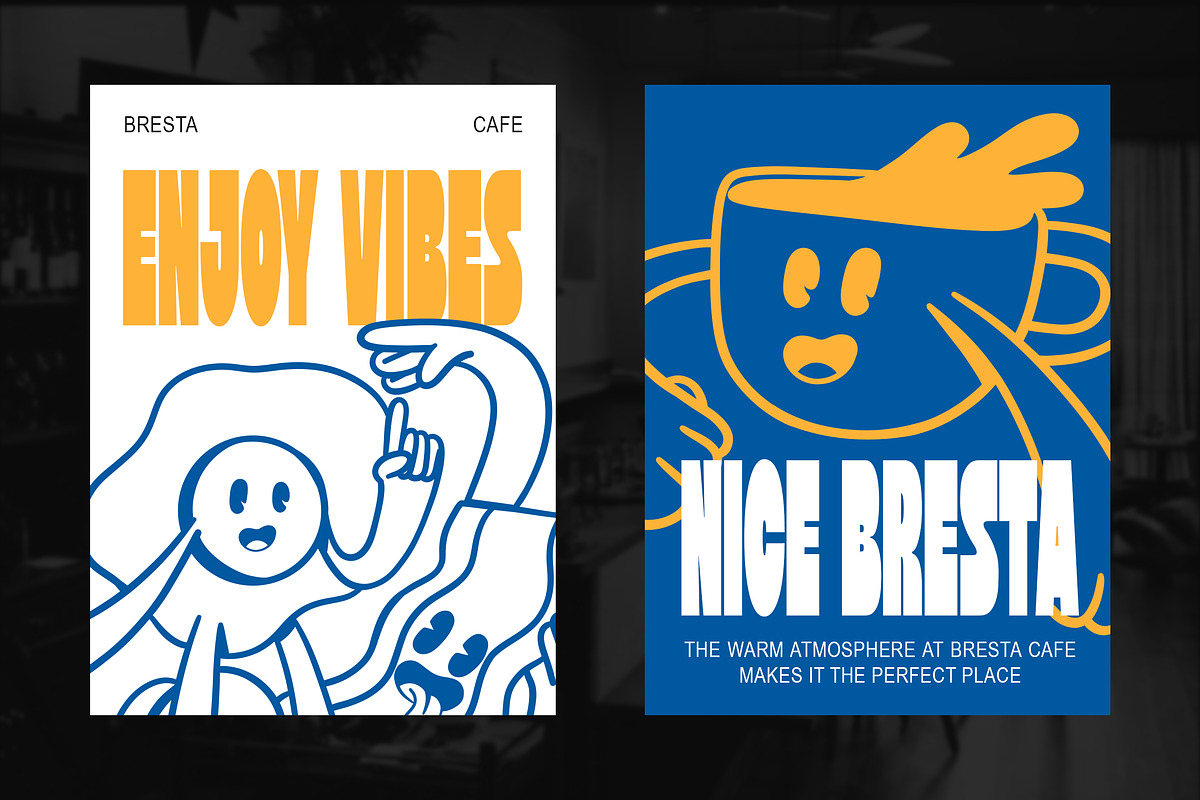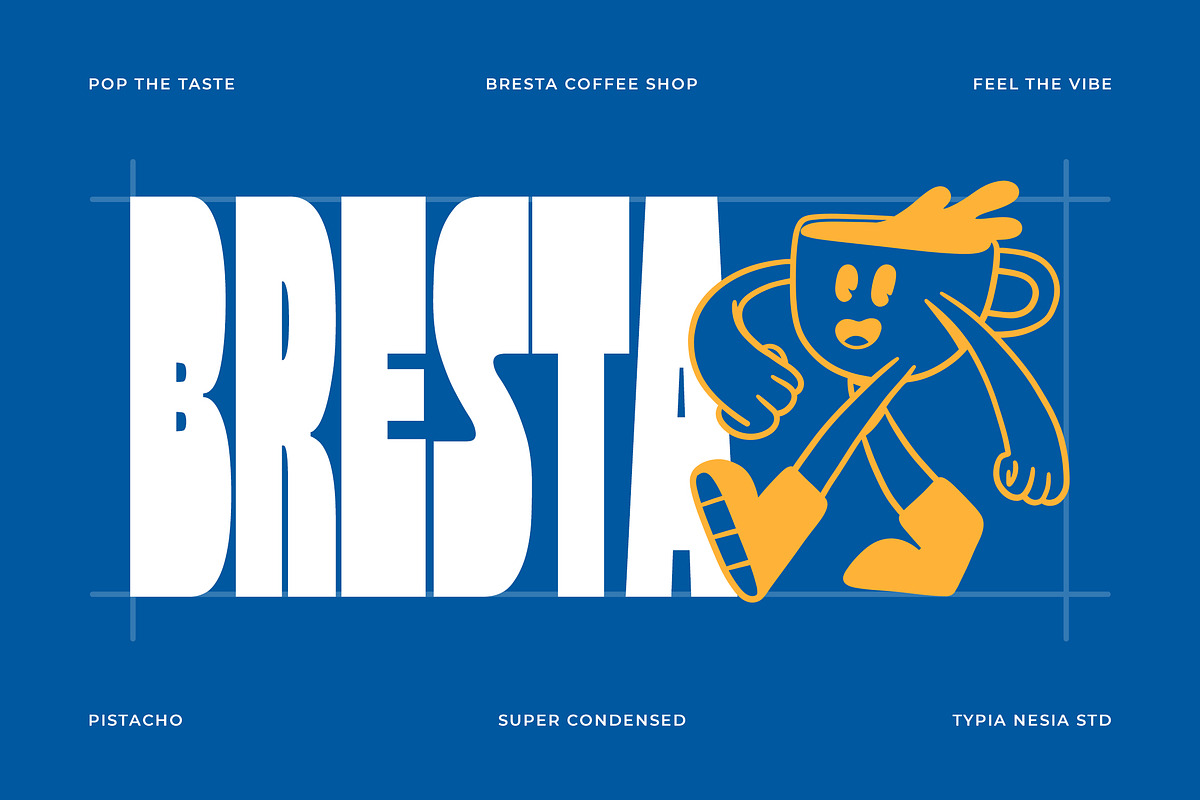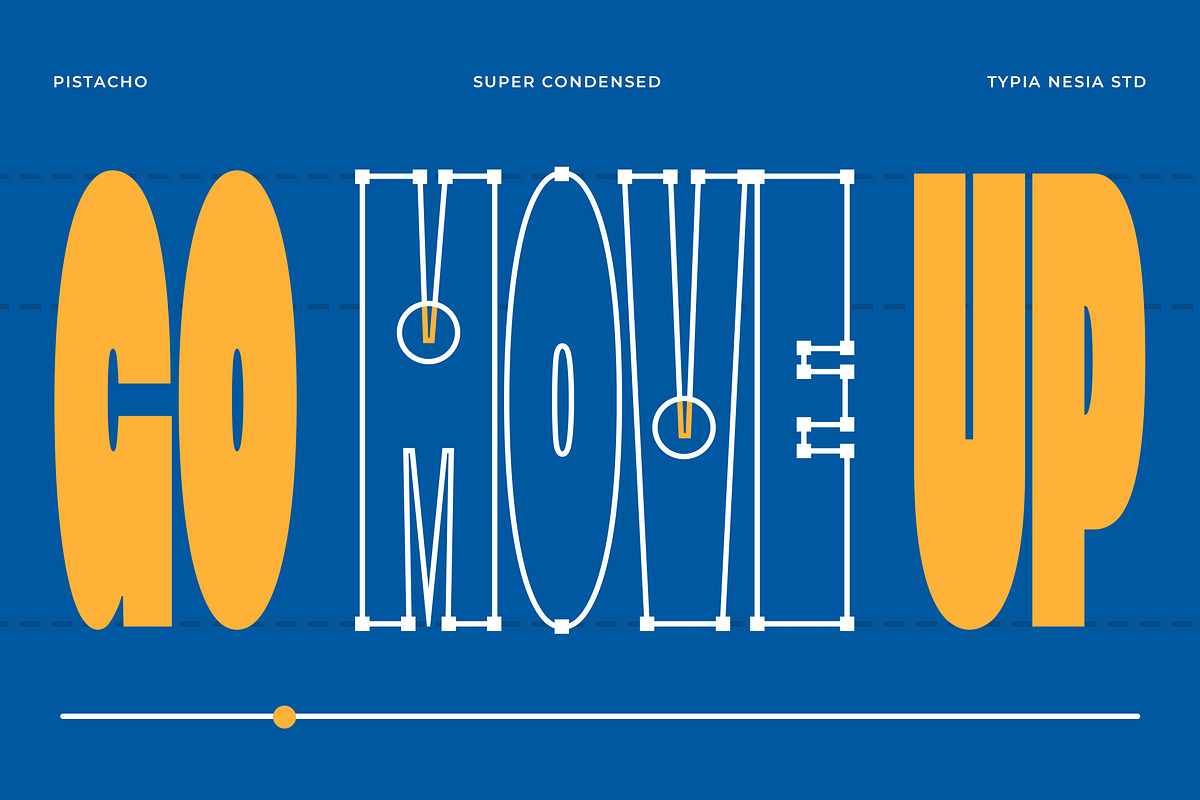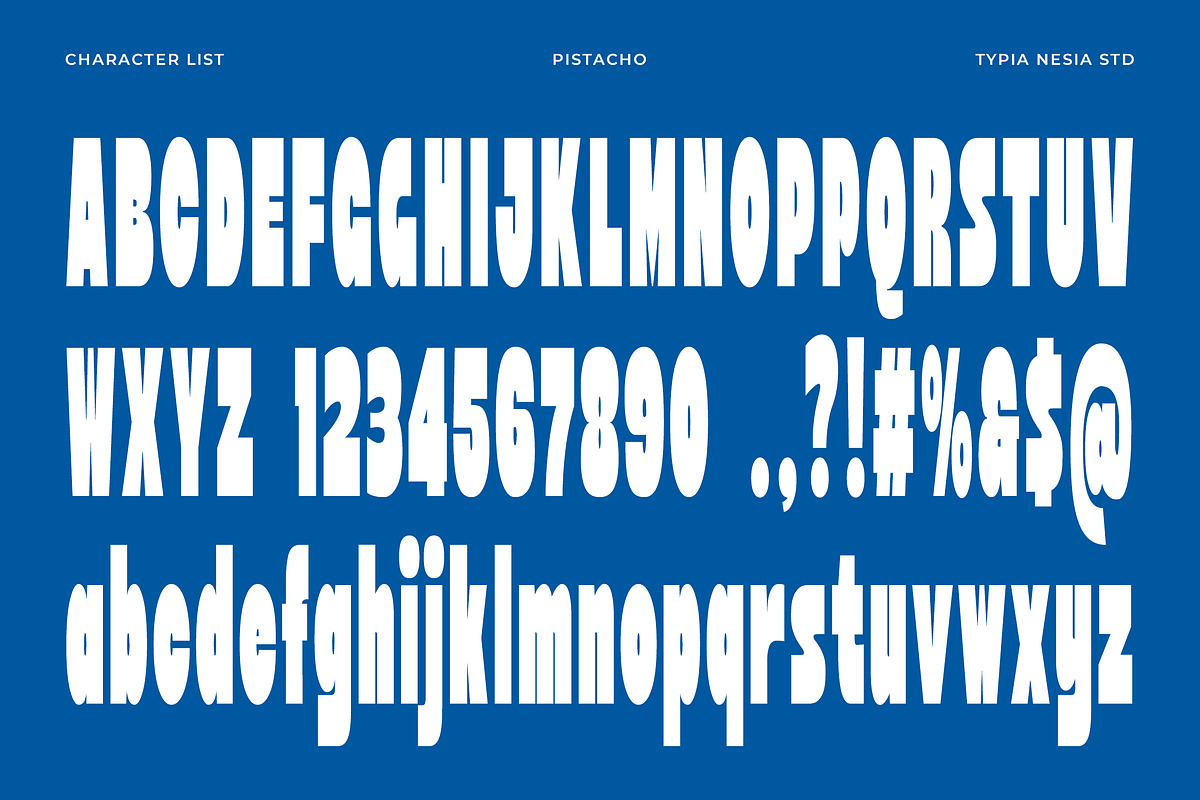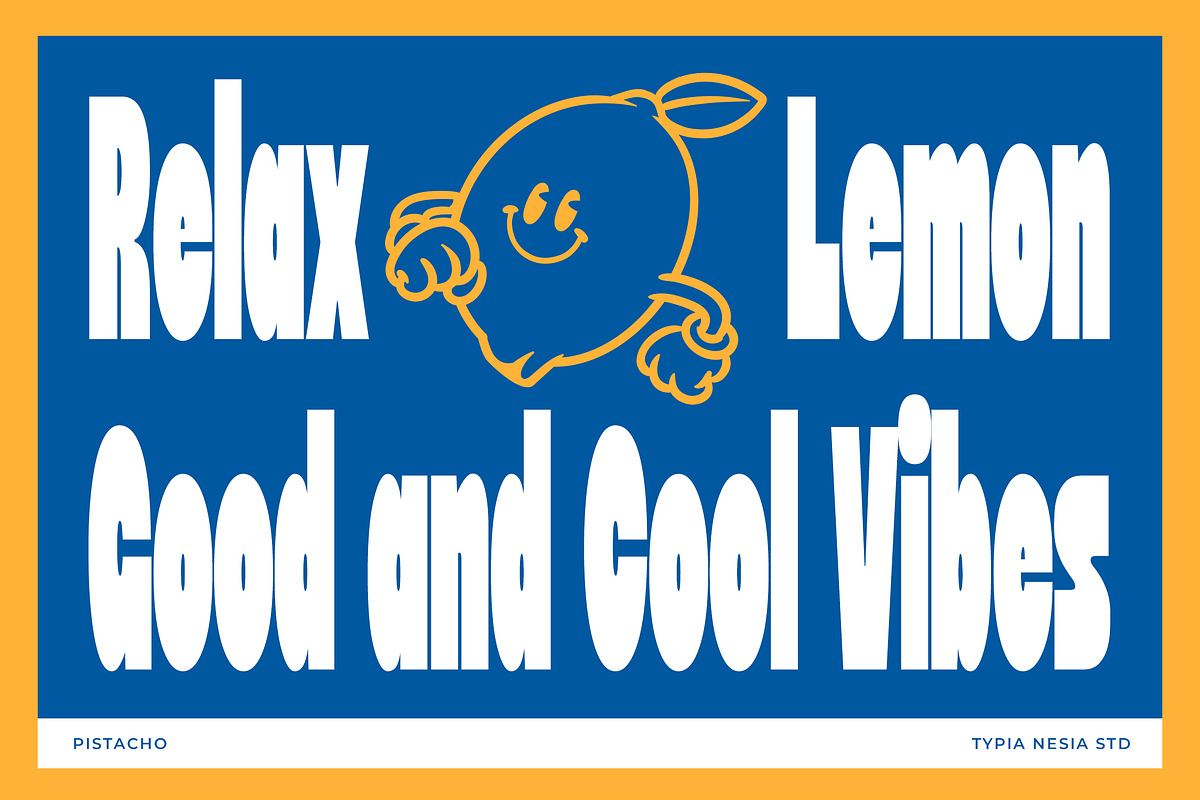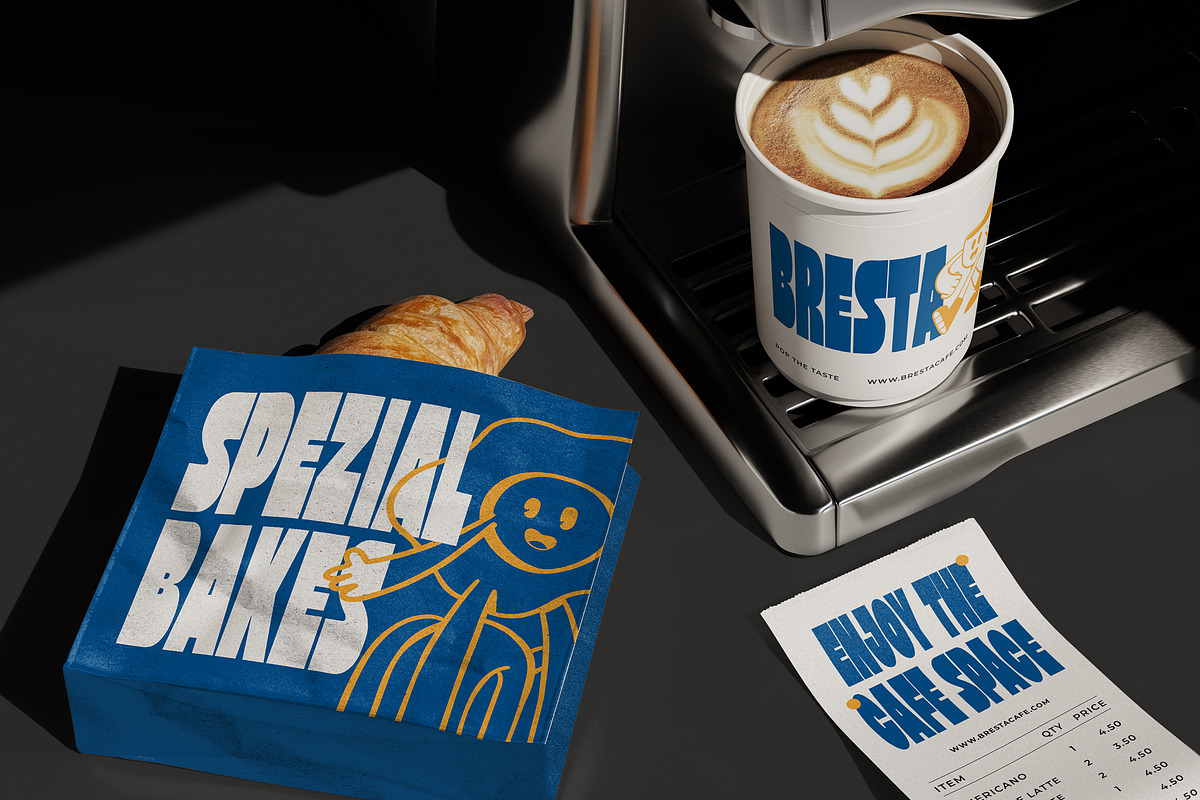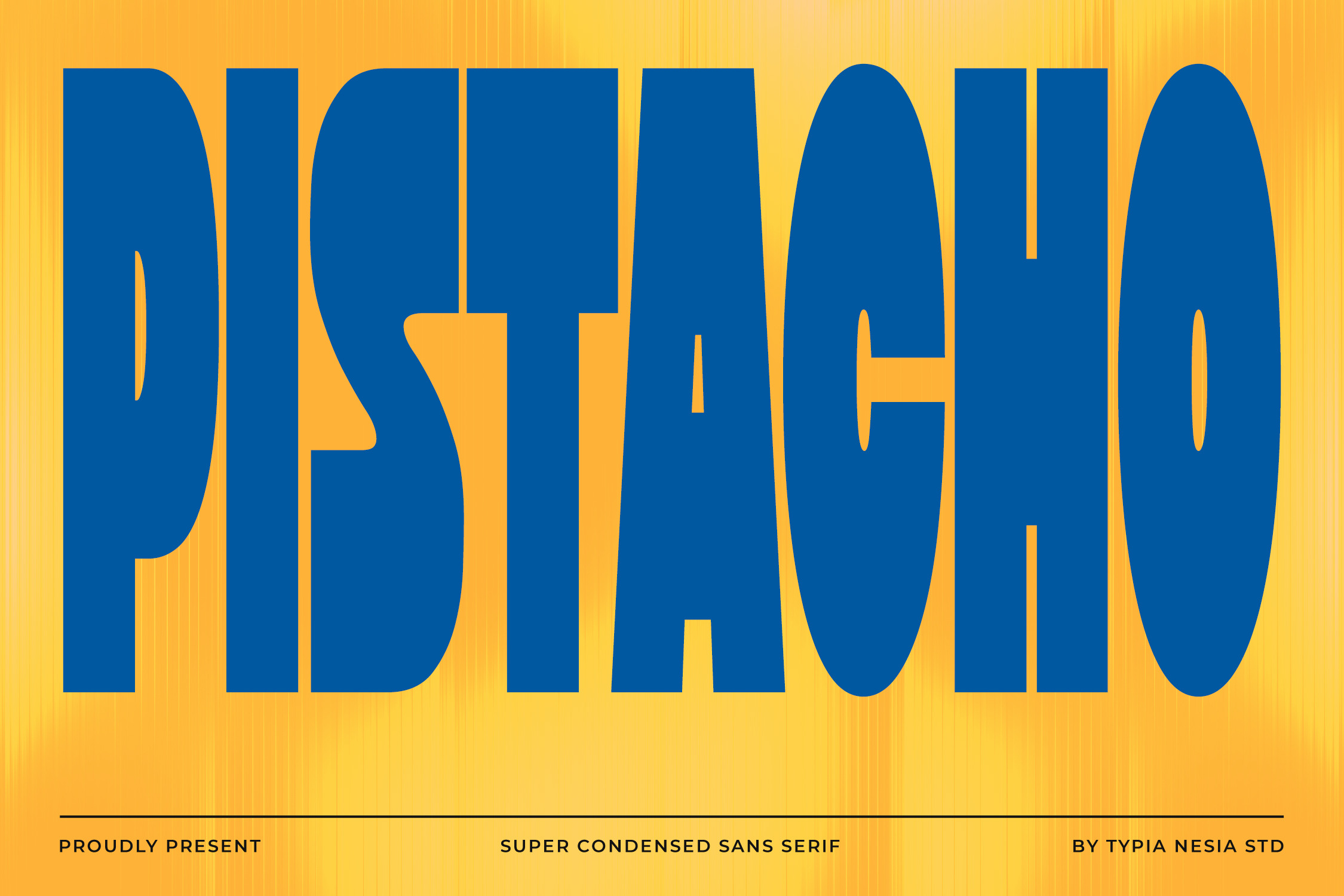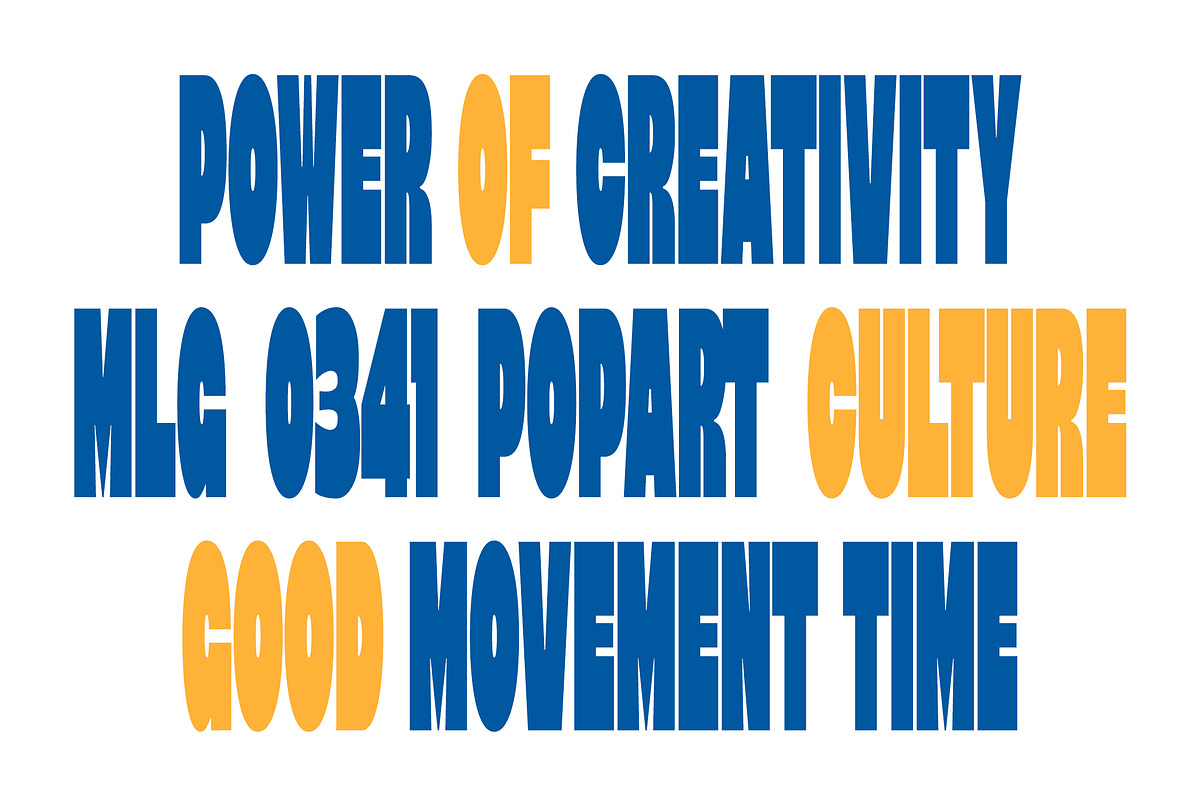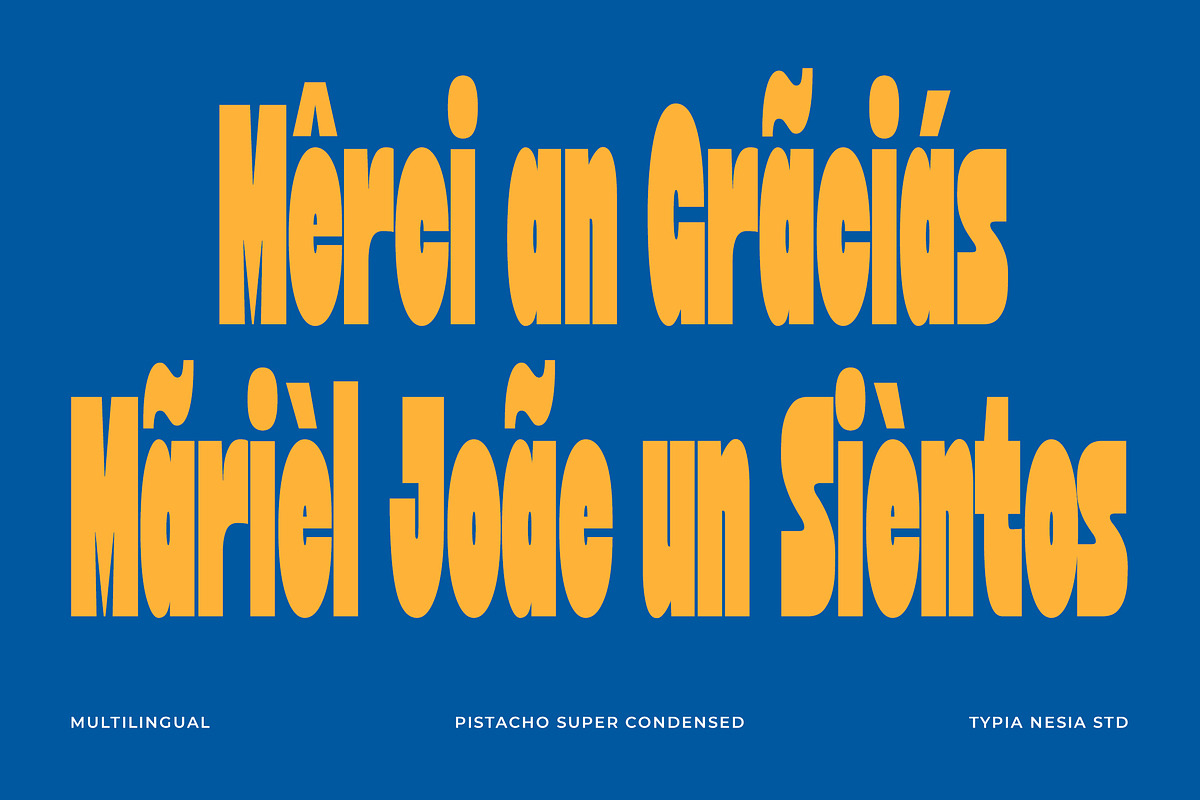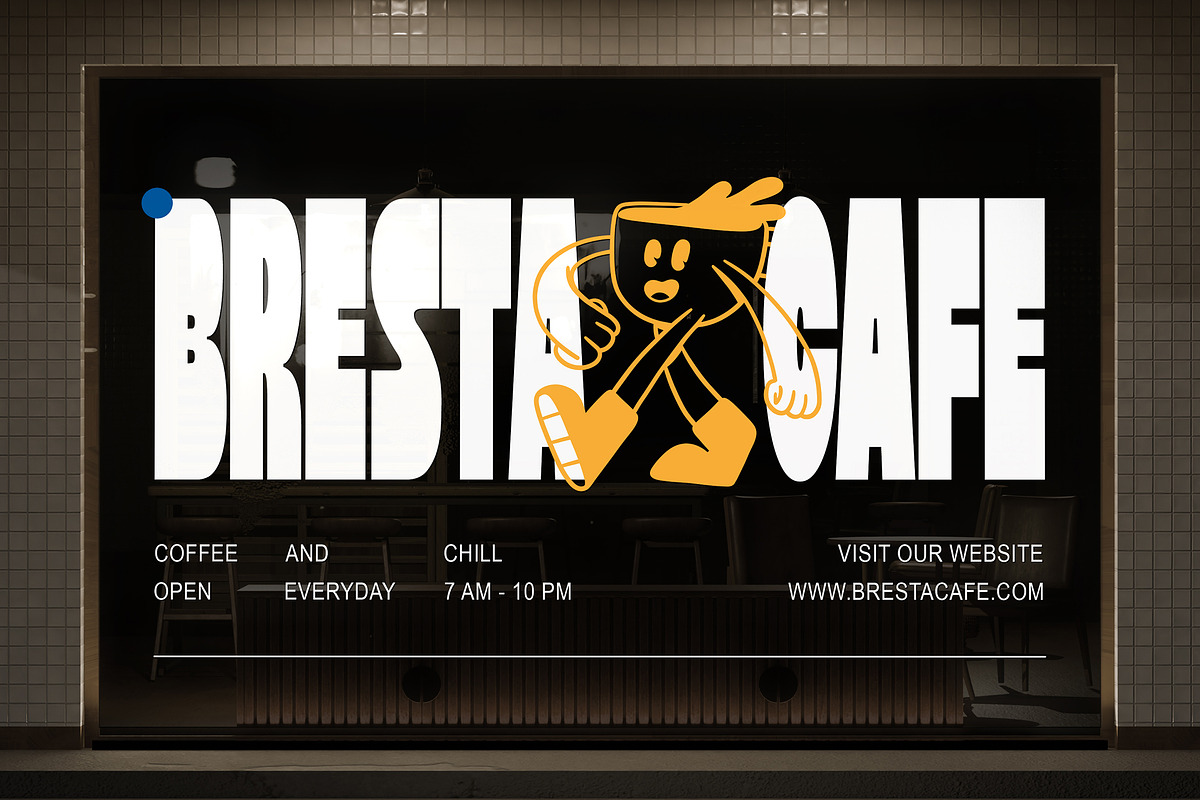
Pistacho - Bold Super Condensed Font
Pistacho - Bold Retro Super Condensed/ Tall Font - Modern Sans Logo Display Font
Pistacho is a bold retro super condensed sans serif font designed to create a striking vertical impact with its tall and narrow proportions. Blending modern structure with 80s, 90s, and Y2K retro influences, this typeface is perfect for bold headlines, logo design, café branding, coffee packaging, signage, music posters, promotional materials, and any design that needs a touch of modern, eye-catching style. Pistacho brings a fresh, energetic, and distinctive typographic voice to any visual project.
Stretch your creativity with Pistacho.